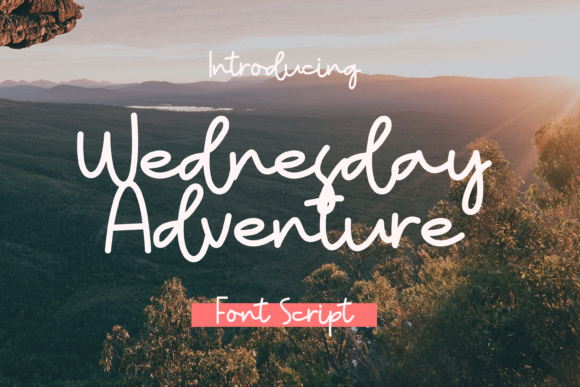
Wednesday Adventure Font for Web Design
In the fast-paced world of digital product creation, typography is often the silent ambassador of your brand. As web designers and UI specialists, we constantly search for typefaces that do more than just display text; they must evoke emotion, guide the user’s eye, and establish an immediate connection. Wednesday Adventure emerges as a compelling choice in this landscape, offering a sweet and friendly handwritten aesthetic that bridges the gap between professional polish and approachable warmth. This script handwritten font is not merely a decorative element; it is a strategic tool for crafting memorable online experiences.
The Visual Personality of a Handwritten Typeface
When evaluating a new addition to our design toolkit, the first question is always about personality. Wednesday Adventure possesses a natural, organic flow that mimics genuine human handwriting without sacrificing legibility. Unlike rigid geometric sans serif fonts that can sometimes feel cold or corporate, this creative font introduces a layer of humanity to digital interfaces. Its strokes are smooth yet varied, creating a rhythm that feels authentic rather than manufactured.
For digital creators, this distinction is vital. In an era where users are increasingly skeptical of overly polished, automated content, a font that feels hand-crafted can significantly boost brand trust. It suggests that there are real people behind the screen, caring about the details. This makes Wednesday Adventure particularly effective for brands that rely on personal connection, such as coaching services, boutique online stores, and artisanal product lines. The font’s unique style allows it to stand out in a crowded digital marketplace, ensuring that your header or hero section captures attention within the critical first few seconds of a site visit.
Strategic Placement in Digital Layouts
Understanding where to deploy a display font is crucial for maintaining visual hierarchy. Wednesday Adventure is best utilized as a headline or accent typeface rather than body copy. Its strength lies in its ability to anchor a layout. Consider using it in hero sections of landing pages where the primary goal is to convey a welcoming tone. A large, well-spaced heading in this script font can soften the impact of a hard sell, making the value proposition feel like an invitation rather than a demand.
In e-commerce environments, this font shines in banner graphics and promotional overlays. Imagine a seasonal sale banner for a handmade jewelry store; using Wednesday Adventure for the phrase "Spring Collection" adds a touch of elegance and craftmanship that a standard Arial or Helvetica simply cannot achieve. Similarly, for course creators and educators, this font can be used on sales pages to highlight key benefits or testimonials, adding a personal endorsement feel to the content.
However, restraint is key. Because it is a script font, it requires space to breathe. Crowding it into small buttons or dense paragraphs will compromise readability and diminish its impact. Instead, reserve it for short phrases, logo text, pull quotes, and section headings that need to break up the monotony of standard web typography.
Readability and Responsive Design Considerations
One of the biggest challenges with handwritten fonts is ensuring they remain legible across various devices. Wednesday Adventure is designed with clarity in mind, but as responsible web designers, we must optimize its presentation. On desktop screens, you have the luxury of size, allowing the intricate details of the letters to shine. However, on mobile devices, these details can blur if the font size is too small.
To maintain usability, ensure that when using Wednesday Adventure on mobile viewports, the font size is sufficiently large—typically no smaller than 24px for headings. Avoid using it for navigation menus or footer links where space is limited and quick scanning is required. Contrast is another critical factor. This font performs exceptionally well on light backgrounds with dark text, providing a clean, crisp look. If you are placing it over image overlays, ensure there is enough contrast or use a subtle drop shadow to prevent the letters from getting lost in busy textures.
For dark mode interfaces, which are becoming increasingly popular in app design and modern websites, test the weight of the font carefully. Sometimes, lighter weights of script fonts can appear thin and fragile against dark backgrounds. Adjusting the color to a slightly off-white or increasing the font weight slightly can help maintain visibility without losing the font’s delicate character.
Effective Font Pairing for Brand Identity
A standalone font rarely builds a complete brand identity; it needs a partner. The success of Wednesday Adventure in a web layout often depends on what it is paired with. The most reliable combination is with a clean, neutral sans serif font. This creates a balanced contrast: the playful, organic nature of the script font is grounded by the stability and readability of the sans serif. For example, pairing Wednesday Adventure with a geometric sans serif for body copy ensures that while the headers draw emotional engagement, the main content remains easy to scan and read.
Alternatively, for a more editorial or sophisticated look, you might pair it with a modern serif font. This combination works well for lifestyle blogs, fashion portfolios, and high-end service providers. The serif adds a layer of tradition and authority, while Wednesday Adventure injects freshness and approachability. When selecting your pairing, pay attention to the x-height and stroke width. You want the two fonts to complement each other without competing for attention. The goal is a harmonious visual hierarchy where the script font acts as the accent, guiding the user through the content structured by the secondary typeface.
Ultimately, Wednesday Adventure offers more than just aesthetic appeal; it provides a versatile tool for enhancing user engagement and brand perception. By thoughtfully integrating this handwritten font into your digital designs, respecting its readability limits, and pairing it with complementary typefaces, you can create web experiences that are not only visually striking but also deeply connected to your audience. In the realm of modern typography, finding a font that balances personality with professionalism is rare, making this typeface a valuable asset for any forward-thinking designer.